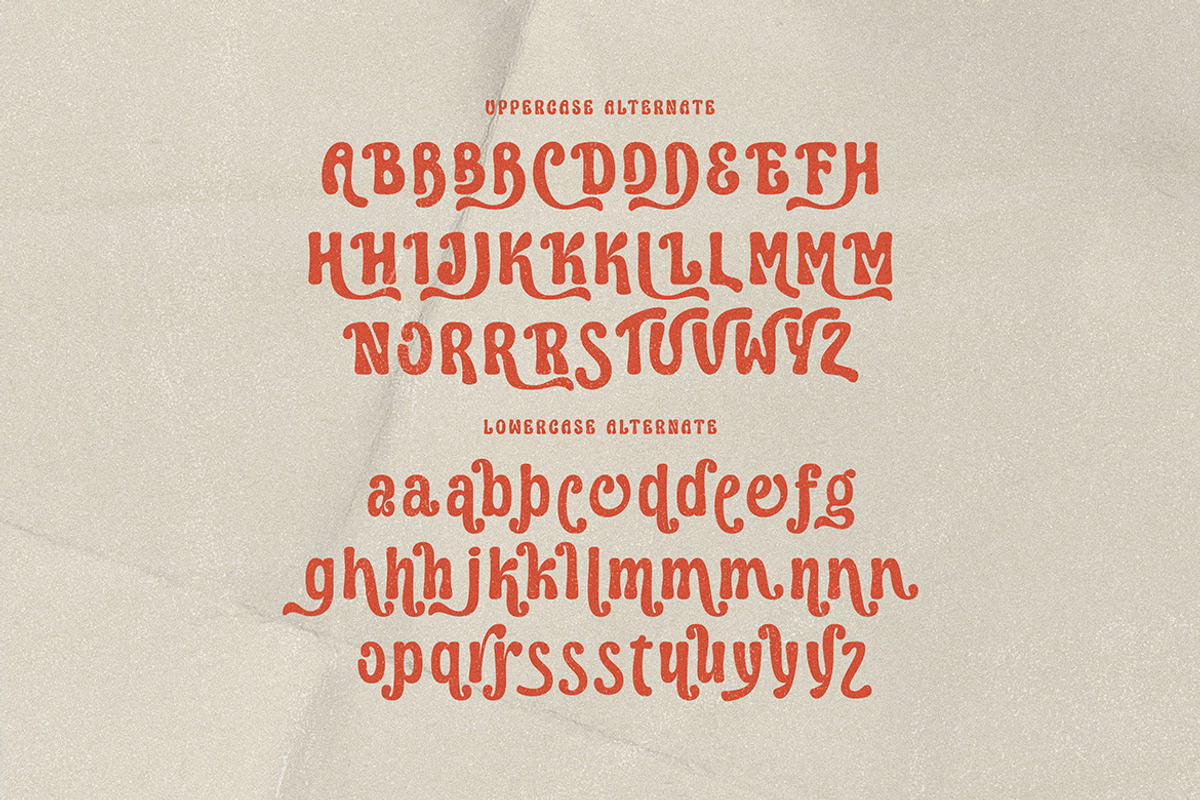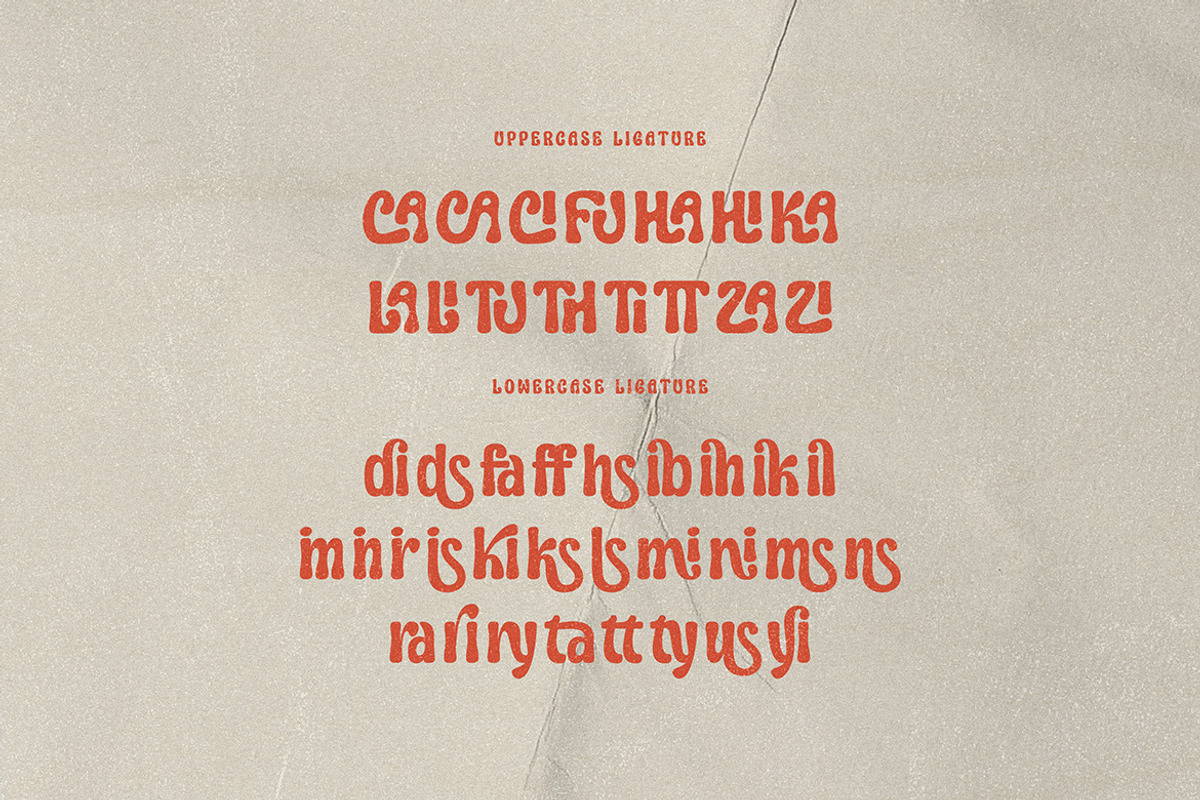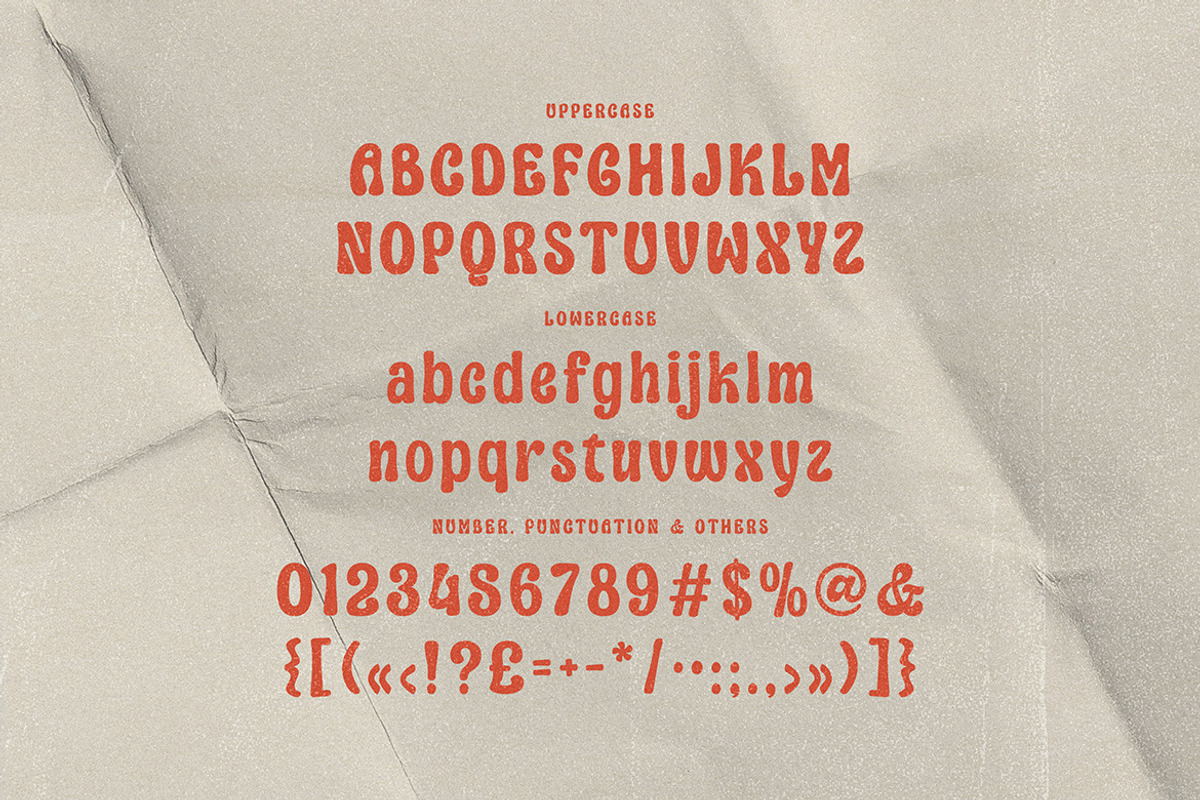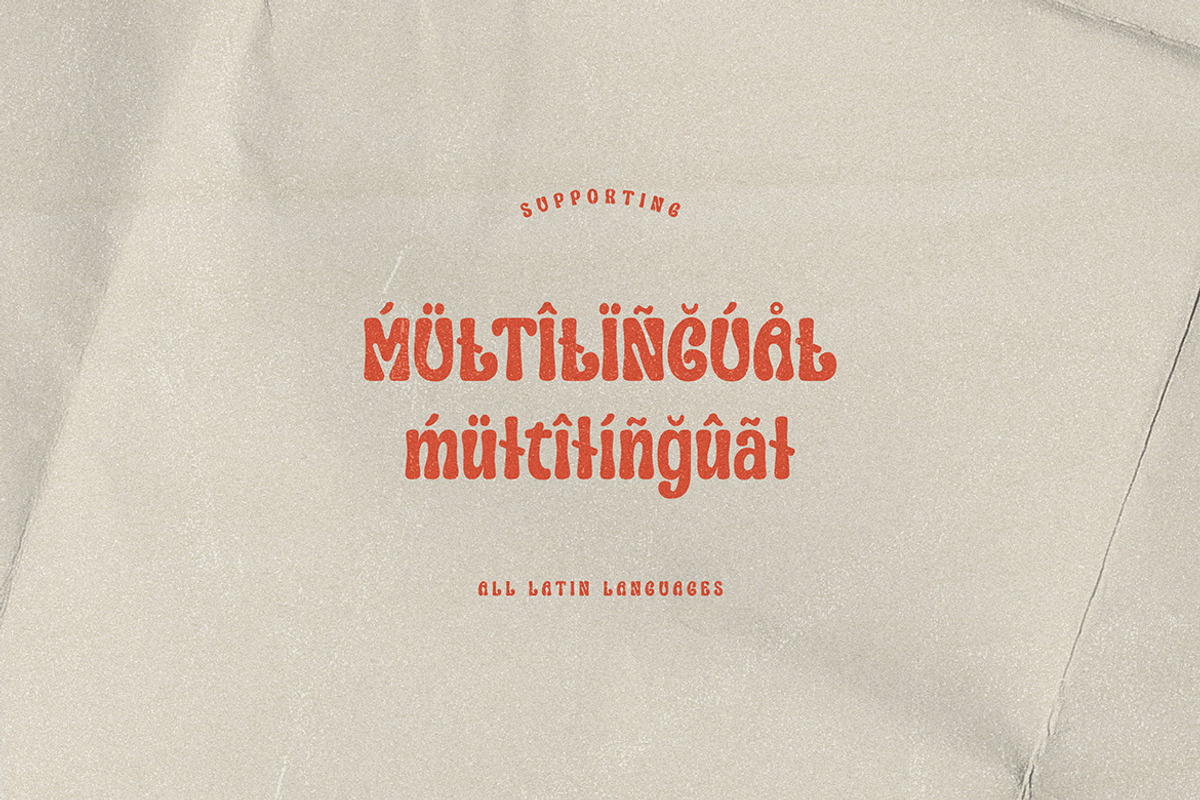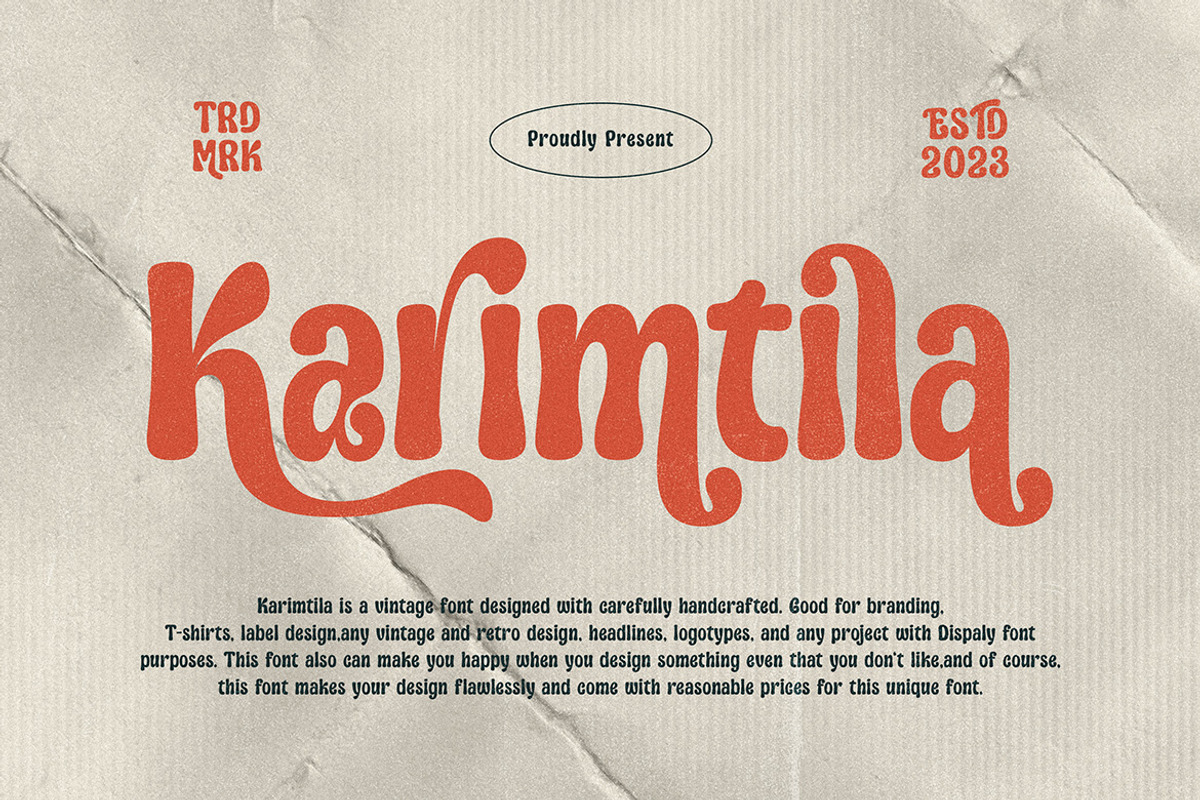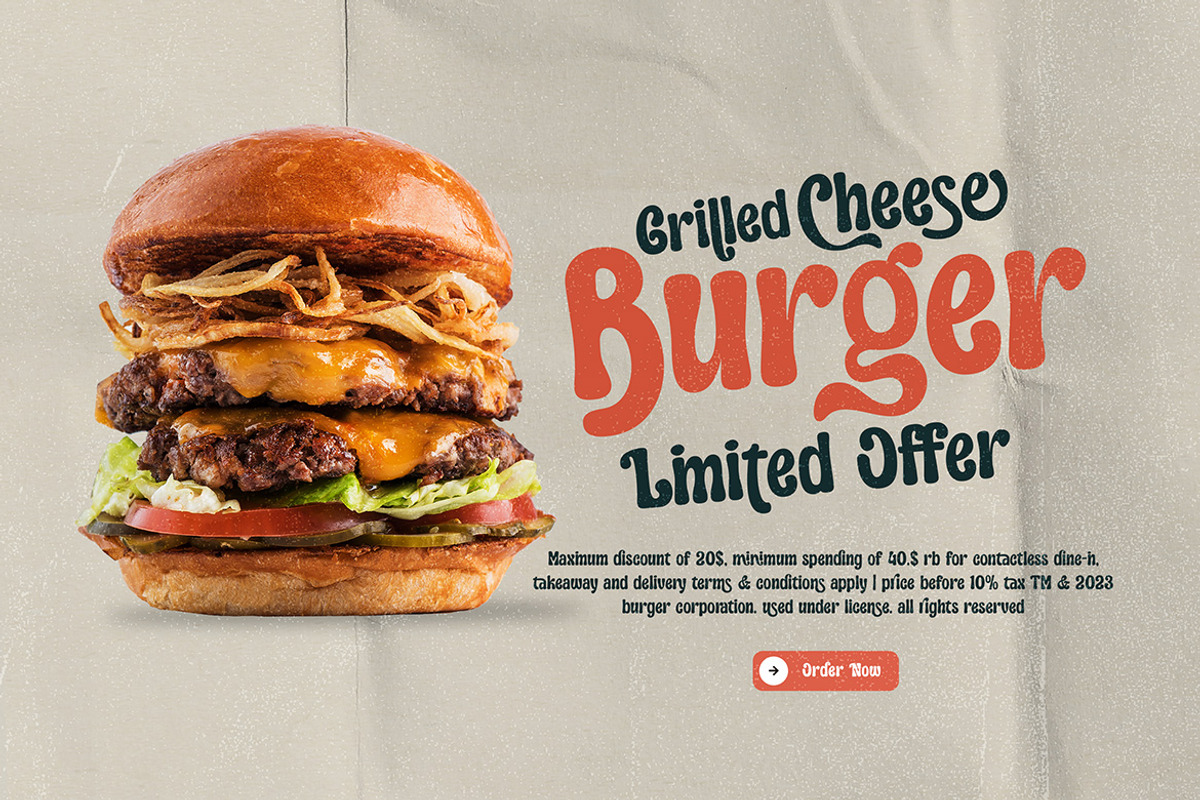
Karimtila Vintage Groovy Font
Playful, groovy, funny, retro & rounded style serif font for your new modern projects. Happy, cute, bold and quirky style on Karimtila font will be great for any branding project. Lot of alternates and ligatures will help you to create unique and original logo design or website header! Enjoy :)
- Alternate characters
- Lot of ligatures
- Great for modern branding projects!